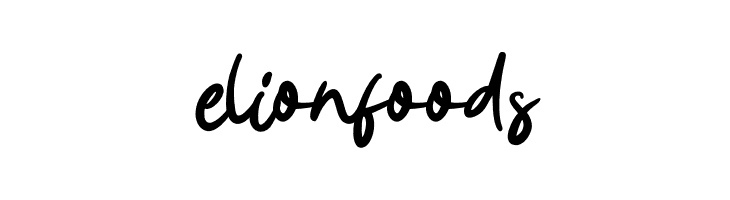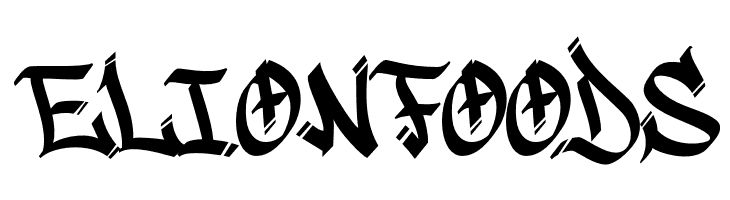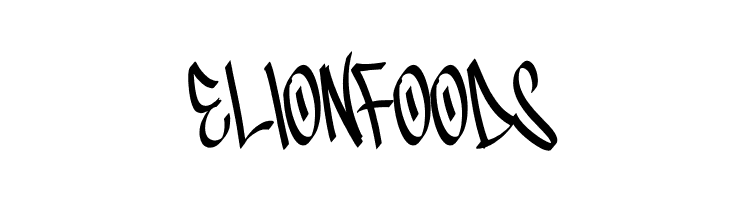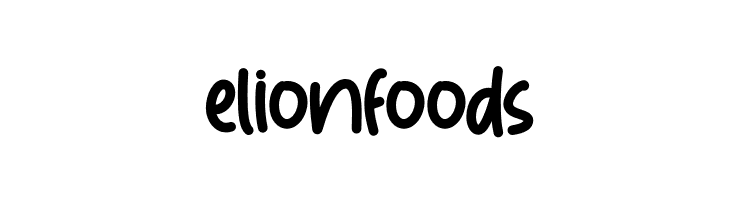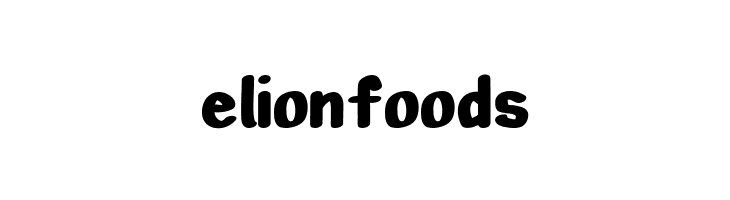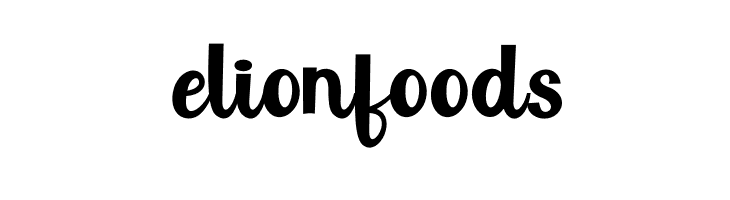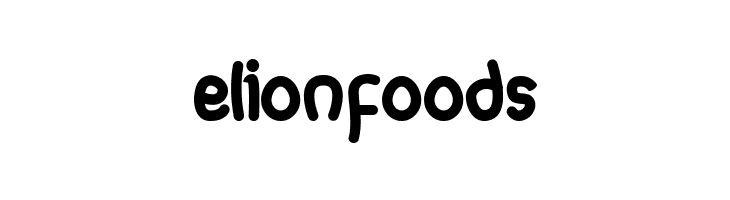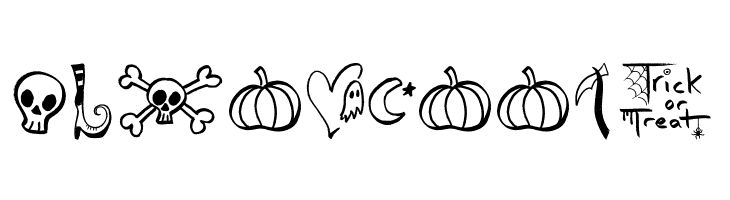
A dynamic handwritten font with fluid, natural strokes and playful uppercase letters.
A bold, graffiti-inspired font with sharp, angular edges and dynamic style.
A bold, graffiti-inspired font with sharp, angular lines and a dynamic style.
A playful, handwritten font with bold, rounded characters and a whimsical style.
A playful, hand-drawn font with bold, flowing strokes and whimsical curves.
A playful, bold, and handwritten-style font with rounded edges.
A playful, bold font with rounded, hand-drawn characters.
A playful, bold handwritten font with a whimsical and energetic style.
A whimsical and playful Halloween-themed icon font.